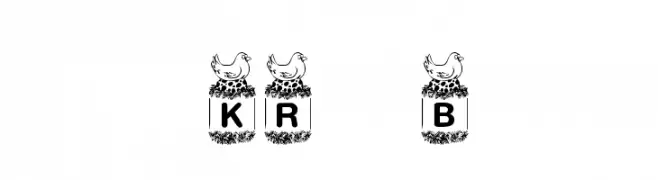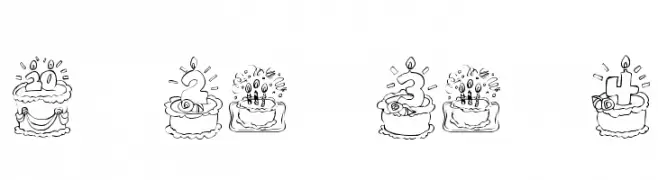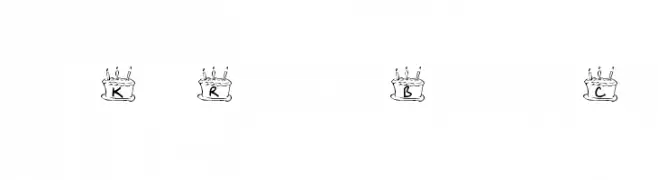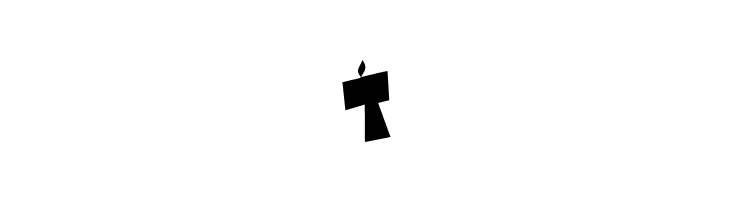
A decorative font featuring detailed birdhouse illustrations.
A decorative font with bold letters and intricate bird motifs.
A decorative font with bold letters and intricate bird illustrations.
A decorative font with characters set in birthday cake designs, perfect for festive occasions.
A playful font with characters inside birthday cakes, perfect for festive occasions.
A playful, decorative font featuring illustrated birthday cakes with numbers and candles.
A bold, festive font with candle-like accents, perfect for celebrations.
A bold, festive font with candle-topped letters, perfect for celebrations.
A whimsical font with numbers decorated in birthday-themed elements like cakes and balloons.
A playful, birthday-themed decorative font with numbers adorned with festive elements.